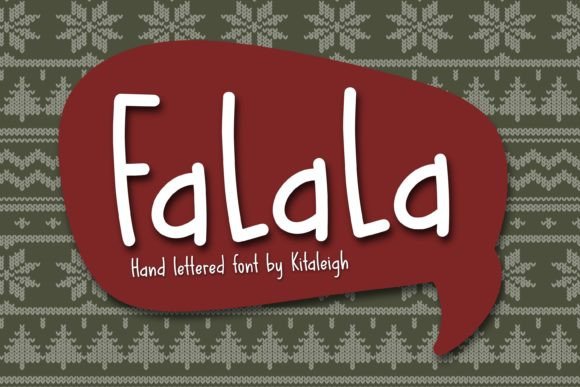
Fa La La Font: A Playful and Festive Typeface for Holiday Projects
The Fa La La font is a delightful, hand-drawn typeface that embodies the whimsical and festive spirit of the holiday season. Its tall, slender letters give it an airy and cheerful personality, making it perfect for holiday projects, invitations, or anything that calls for a lighthearted, crafty touch.
Unique Characteristics of the Fa La La Font
The Fa La La font is a one-of-a-kind typeface that boasts several distinctive features. Here are a few:
- Hand-drawn design: The Fa La La font is meticulously crafted by hand, giving it a personal and organic feel.
- Tall and slender letters: The font’s letters are tall and slender, creating a sense of airiness and lightness.
- Whimsical and festive: The Fa La La font exudes a playful, festive charm that’s perfect for holiday-themed projects.
- Crafty and lighthearted: The font’s hand-drawn design and playful personality make it ideal for projects that require a crafty, lighthearted touch.
Uses of the Fa La La Font
The Fa La La font is incredibly versatile, making it suitable for a wide range of projects and applications. Here are some ideas to get you started:
- Holiday invitations: Use the Fa La La font to create festive and fun invitations for holiday parties, gatherings, or events.
- Christmas cards and gift tags: Add a personal touch to your holiday cards and gift tags with the Fa La La font.
- Social media graphics: Create eye-catching social media graphics, such as holiday-themed posts, banners, or ads, using the Fa La La font.
- DIY projects: Use the font to add a festive touch to your DIY projects, such as handmade decorations, gift wrapping, or scrapbooking.
- Web and print designs: Incorporate the Fa La La font into your web and print designs, such as holiday-themed website headers, posters, or flyers.
Benefits of Using the Fa La La Font
The Fa La La font offers several benefits that make it an excellent choice for holiday projects and beyond. Here are a few:
- Instant festive feel: The Fa La La font instantly adds a festive touch to any project, making it perfect for holiday-themed designs.
- Unique and eye-catching: The font’s hand-drawn design and whimsical personality make it stand out from more traditional typefaces.
- Versatile: The font’s versatility makes it suitable for a wide range of projects and applications.
Tips for Using the Fa La La Font
Here are some tips to help you get the most out of the Fa La La font:
- Pair with complementary fonts: Pair the Fa La La font with complementary fonts to create visual interest and contrast.
- Experiment with colors: Experiment with different colors and textures to add depth and personality to your designs.
- Use it sparingly: Use the Fa La La font sparingly to avoid overwhelming your designs and to create a sense of visual balance.
- Have fun: Most importantly, have fun and be creative with the Fa La La font!
In conclusion, the Fa La La font is a playful, hand-drawn typeface that’s perfect for holiday projects, invitations, and anything that calls for a lighthearted, crafty touch. Its unique characteristics, versatility, and benefits make it an excellent choice for designers, DIY enthusiasts, and anyone who loves the holiday season.